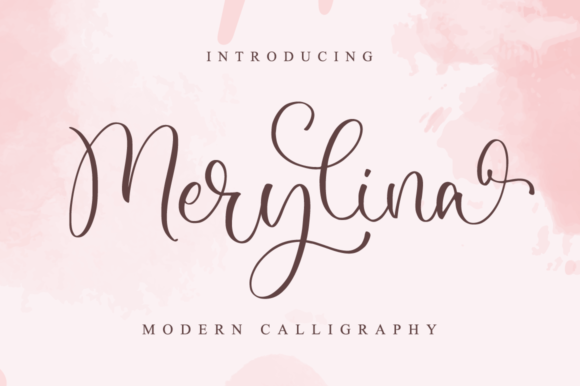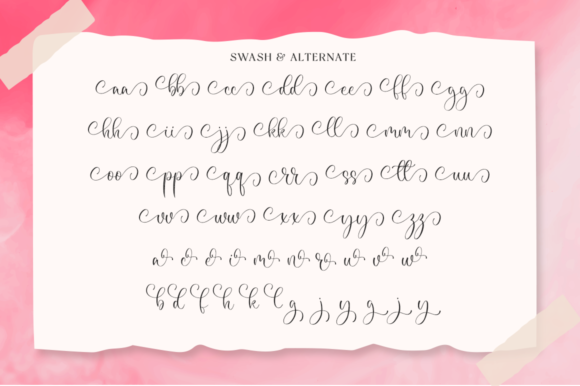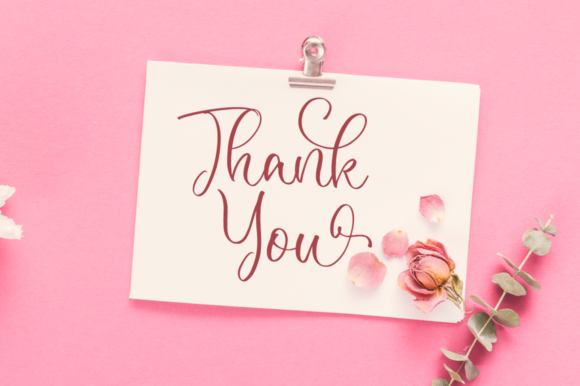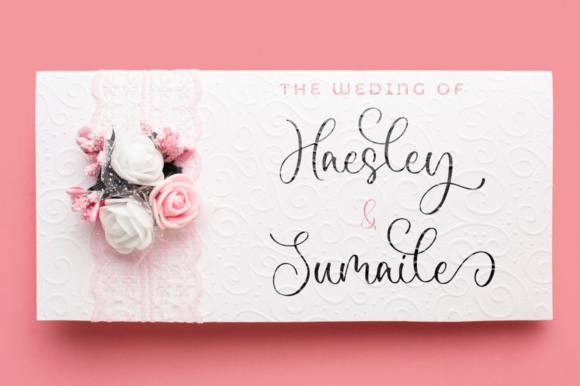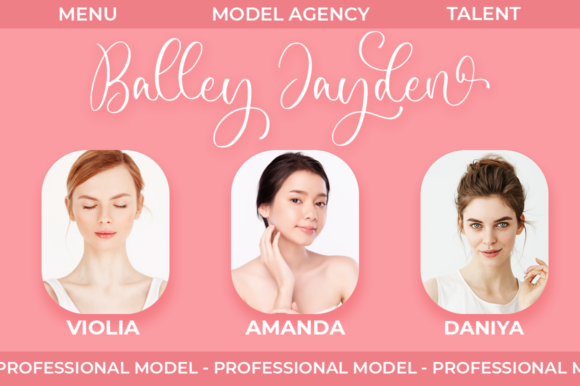
About Merylina Font
Merylina is a thin lettered and graceful script font. Fall for its ravishing style and use it to create gorgeous designs. Merylina is PUA encoded which means you can access all of the glyphs and swashes with ease!